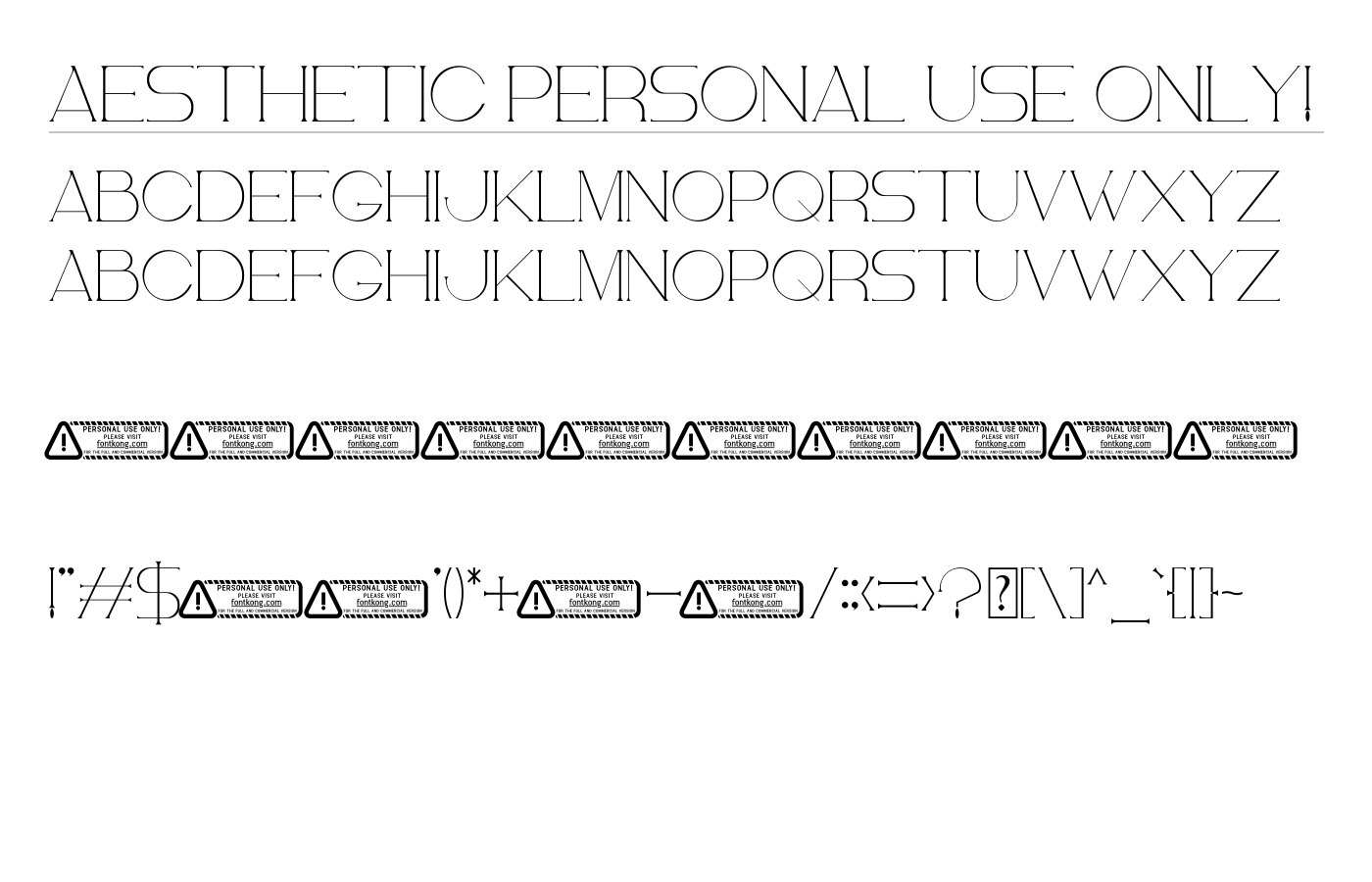
Aesthetic PERSONAL USE ONLY! is a delicate, ultra-thin serif font with a modern and elegant feel. Its narrow letterforms and high contrast strokes create a refined, airy look that suits stylish branding, invitations, or editorial headlines where a light, sophisticated touch is desired. This font works best for decorative uses, adding a graceful and contemporary vibe to designs needing a sense of finesse and minimalism.
Aesthetic PERSONAL USE ONLY! Font
About Aesthetic PERSONAL USE ONLY! Font